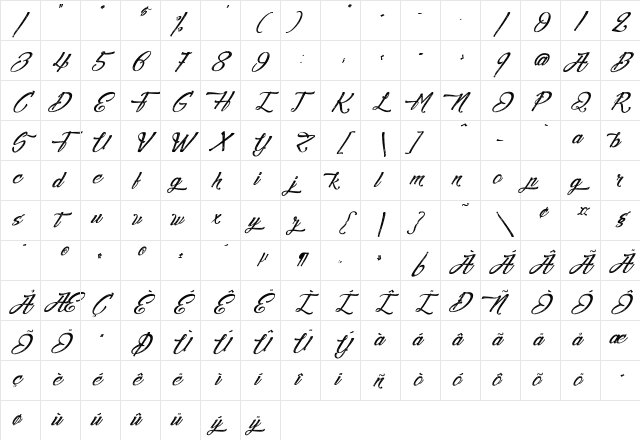
Agua de Jamaica Italic
Foundry: Cataleya Butcher
Designer: Cataleya Butcher
Design Context for Agua de Jamaica
Agua de Jamaica is a composed and adaptable typeface that performs quietly and consistently across a wide range of design contexts. The slanted form adds forward momentum and visual energy.
Pro Tip: Use Agua de Jamaica for emphasis, pull quotes, and subheadings where its slanted energy can add rhythm to the layout.